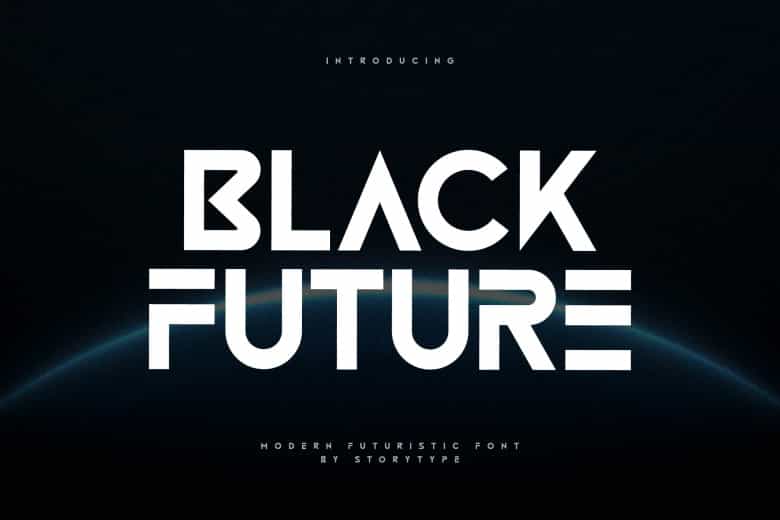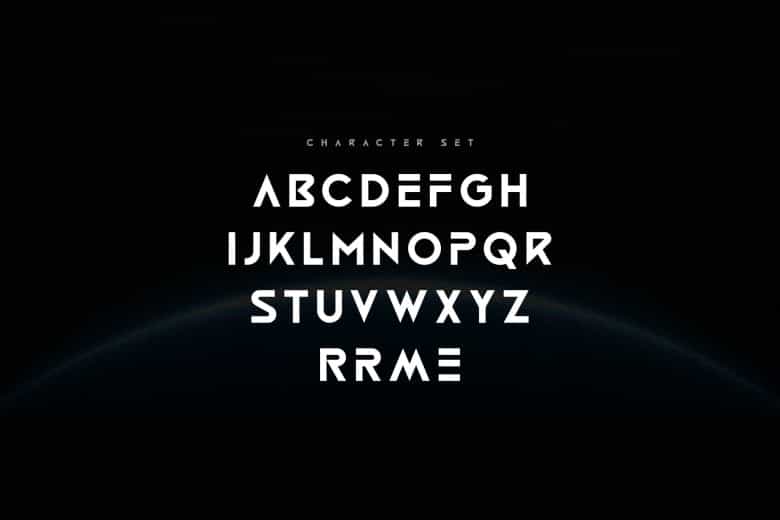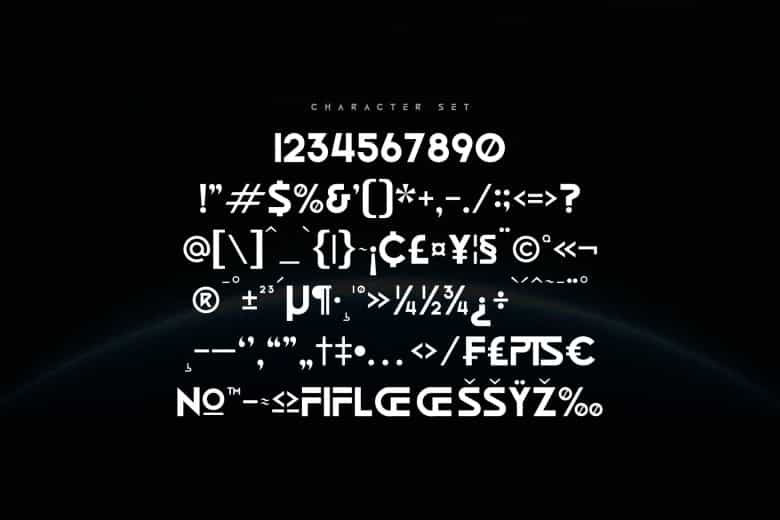
Storytype designed Black Future Font to create an eye-catching font with its contemporary and timeless style and look, perfect for creating classy yet elegant logos, movie titles, book titles, fashion brand clothing labels and magazines, lettering quotes or much more. This typeface stands out among others in its classy elegance that is hard to replicate in other fonts.